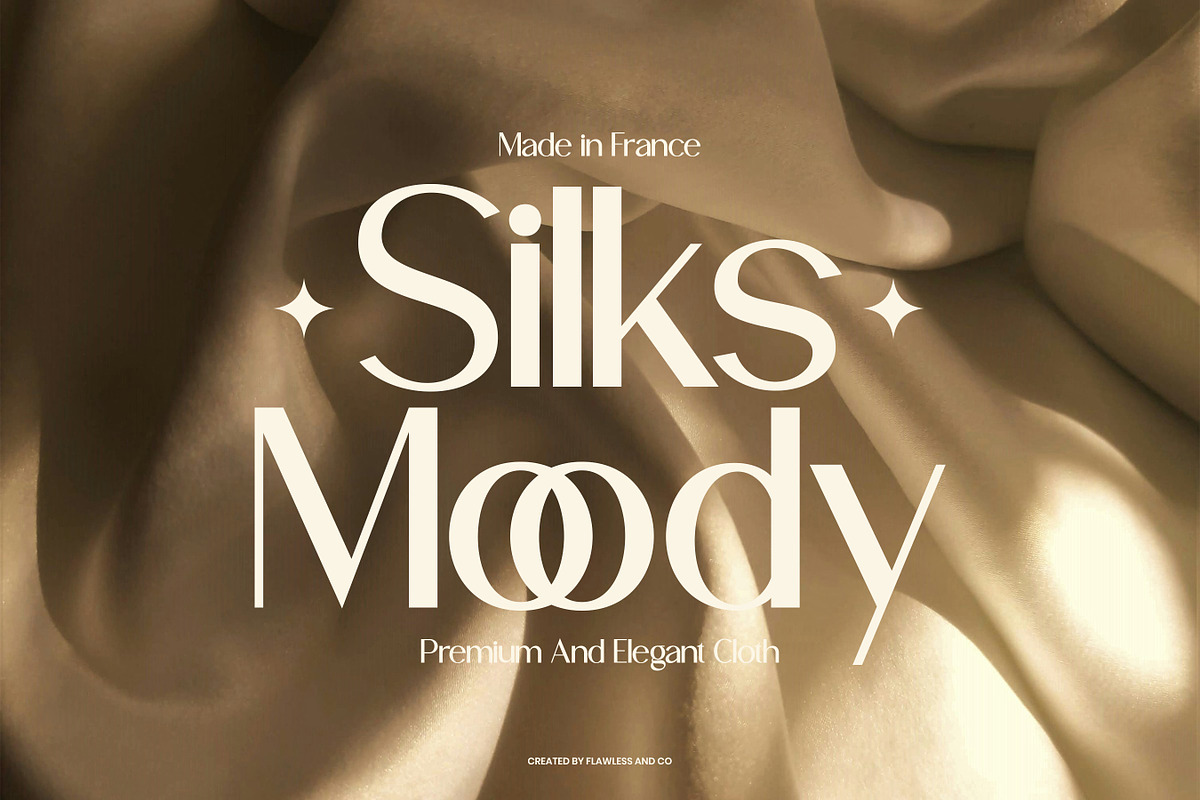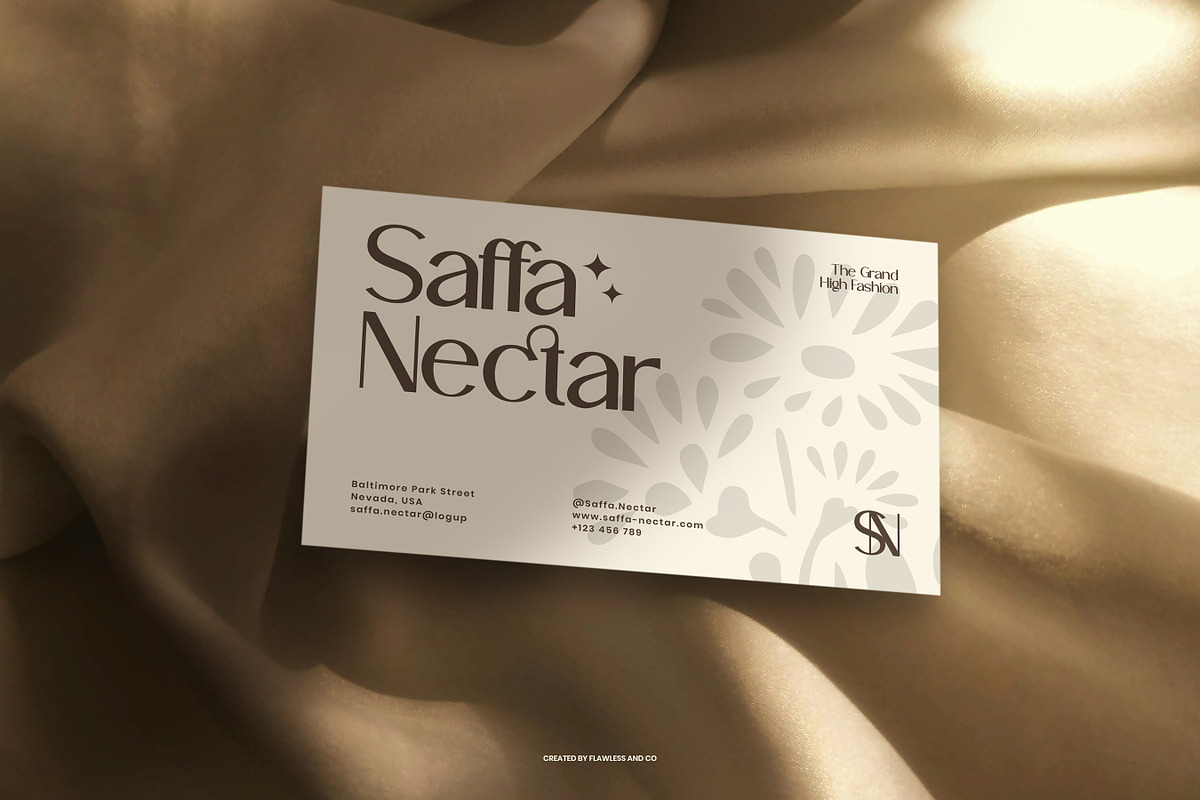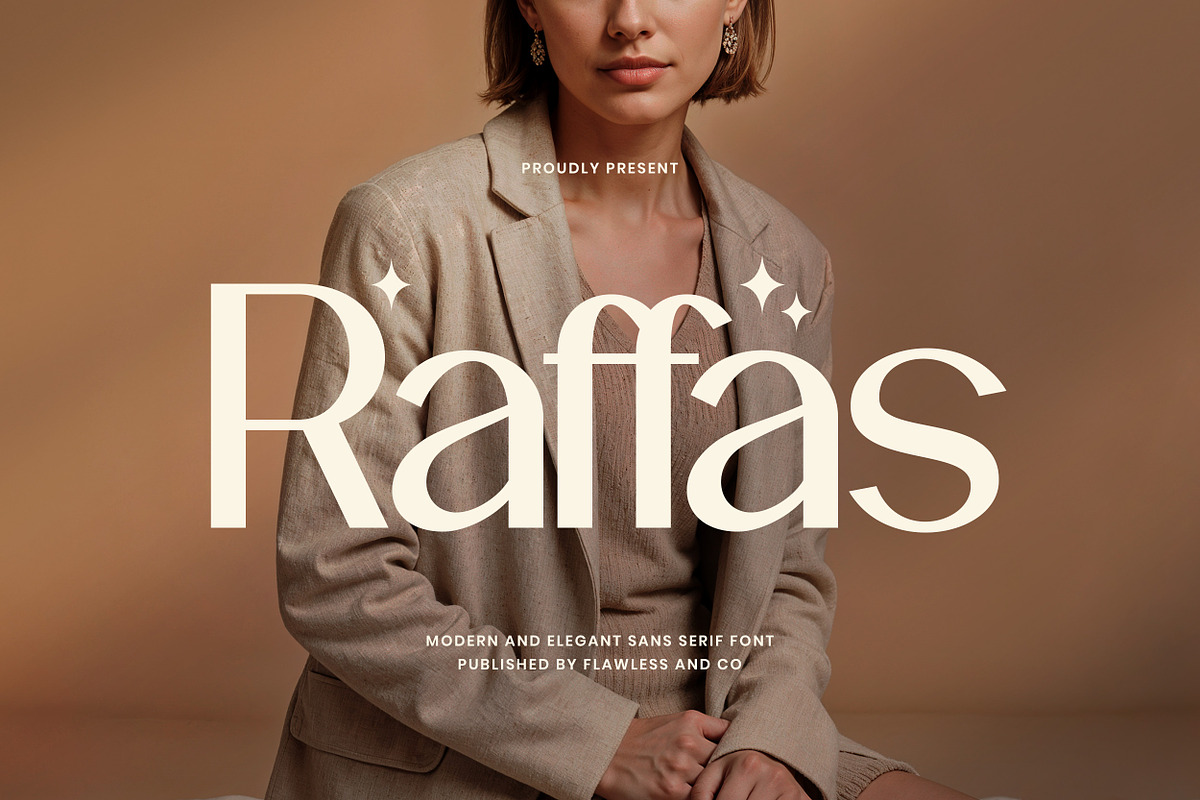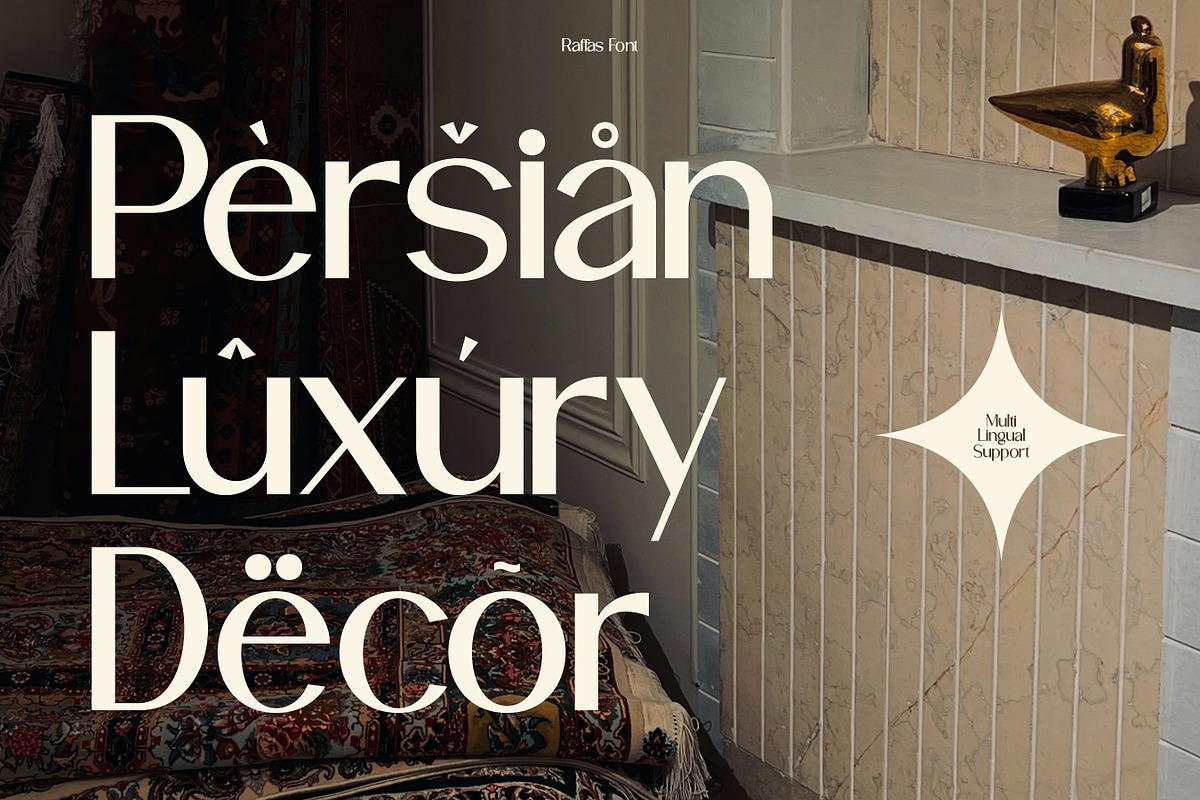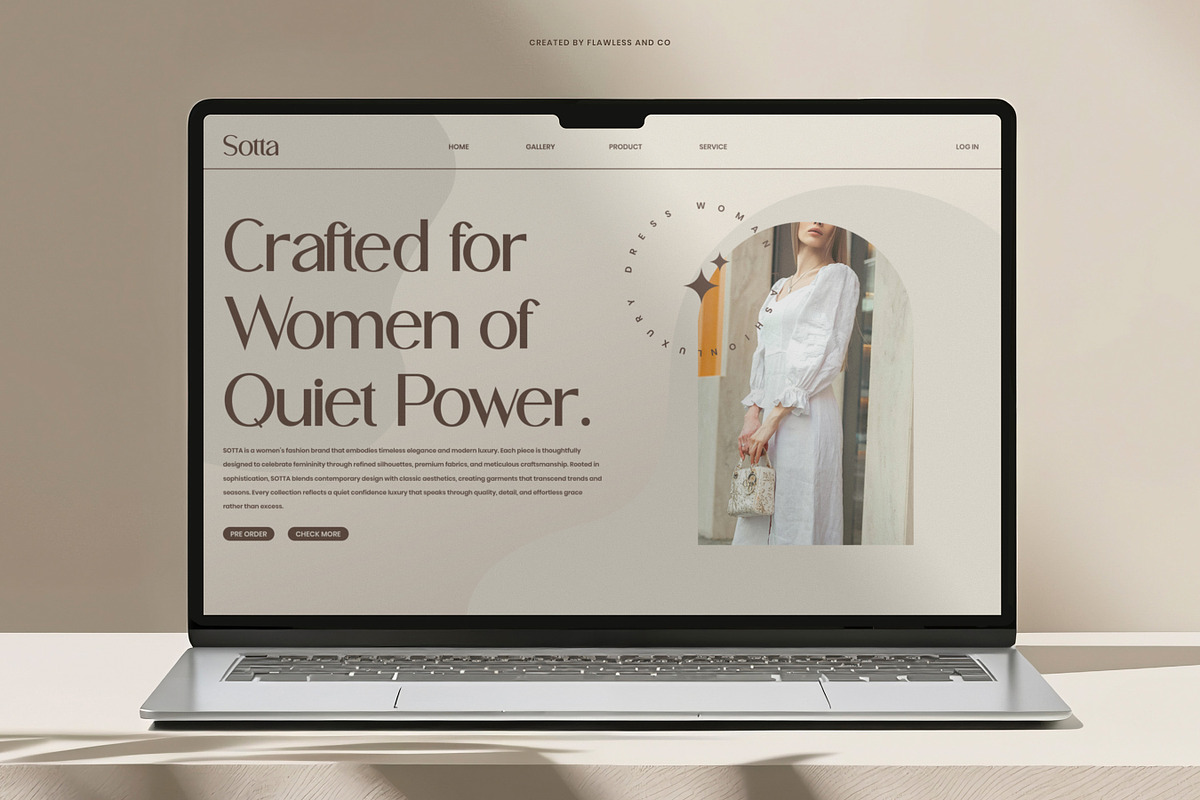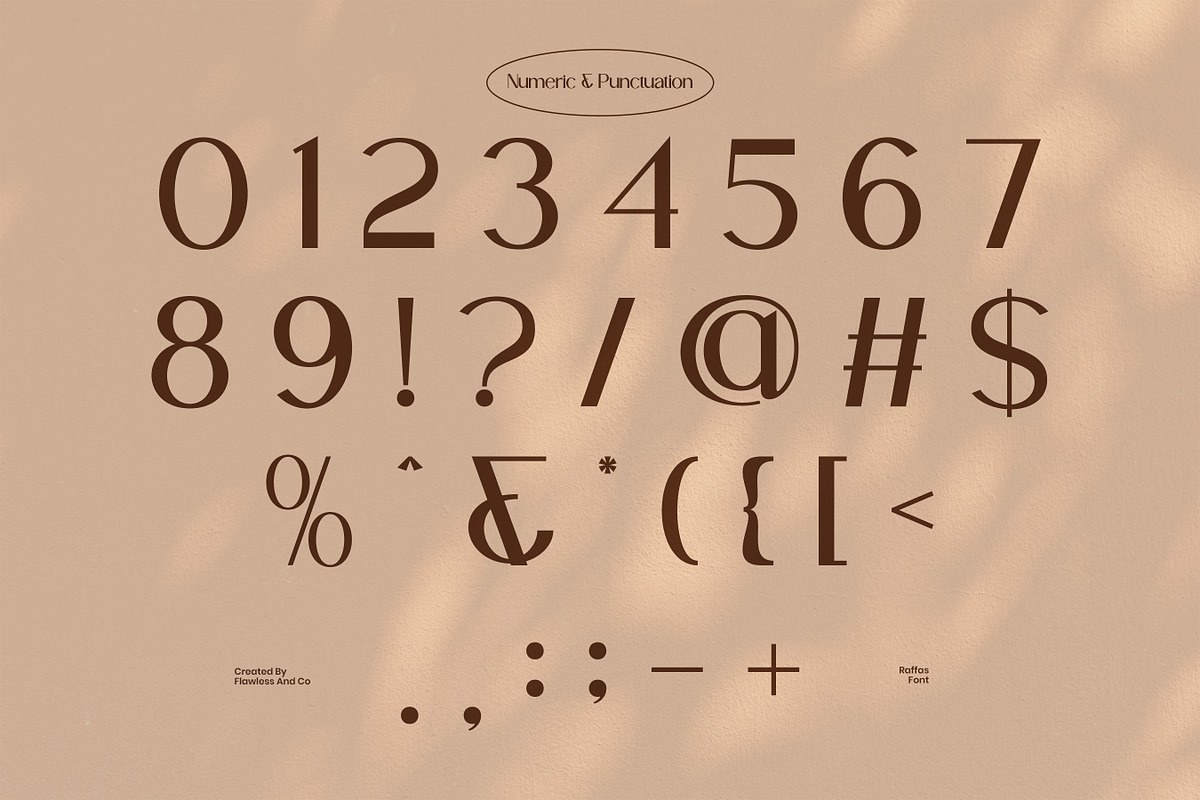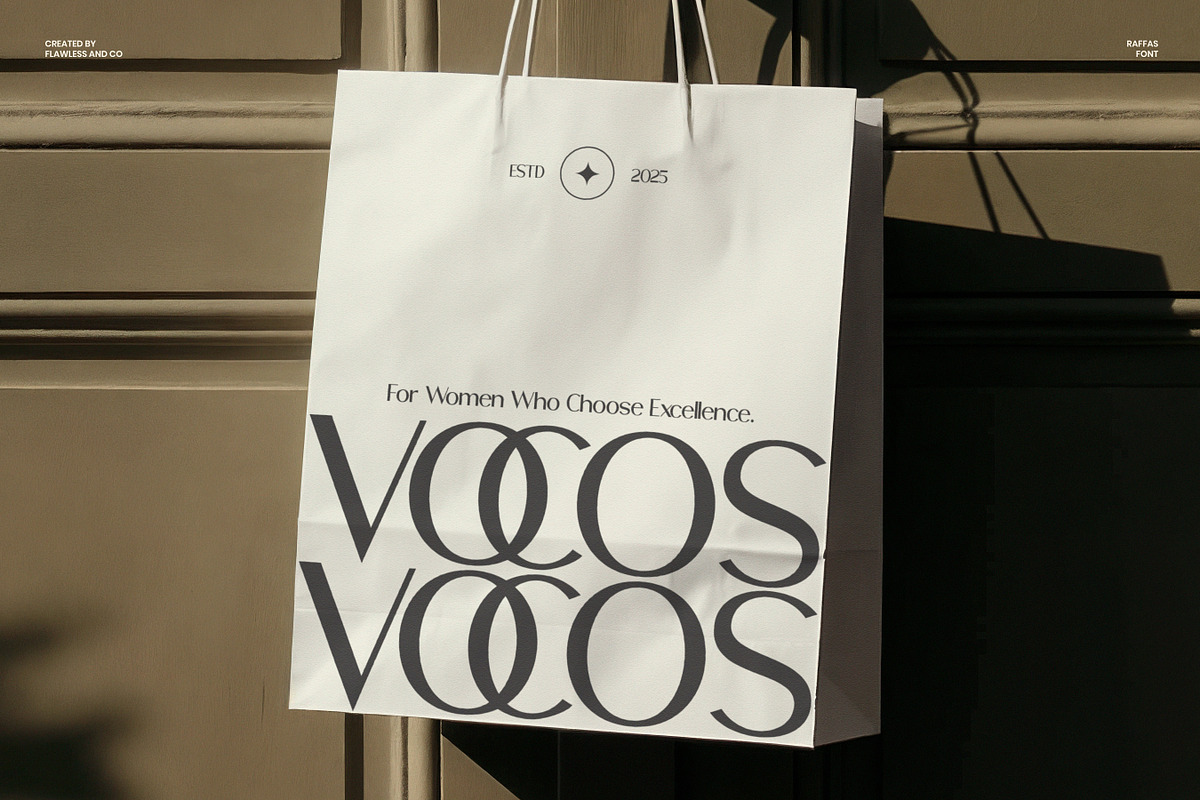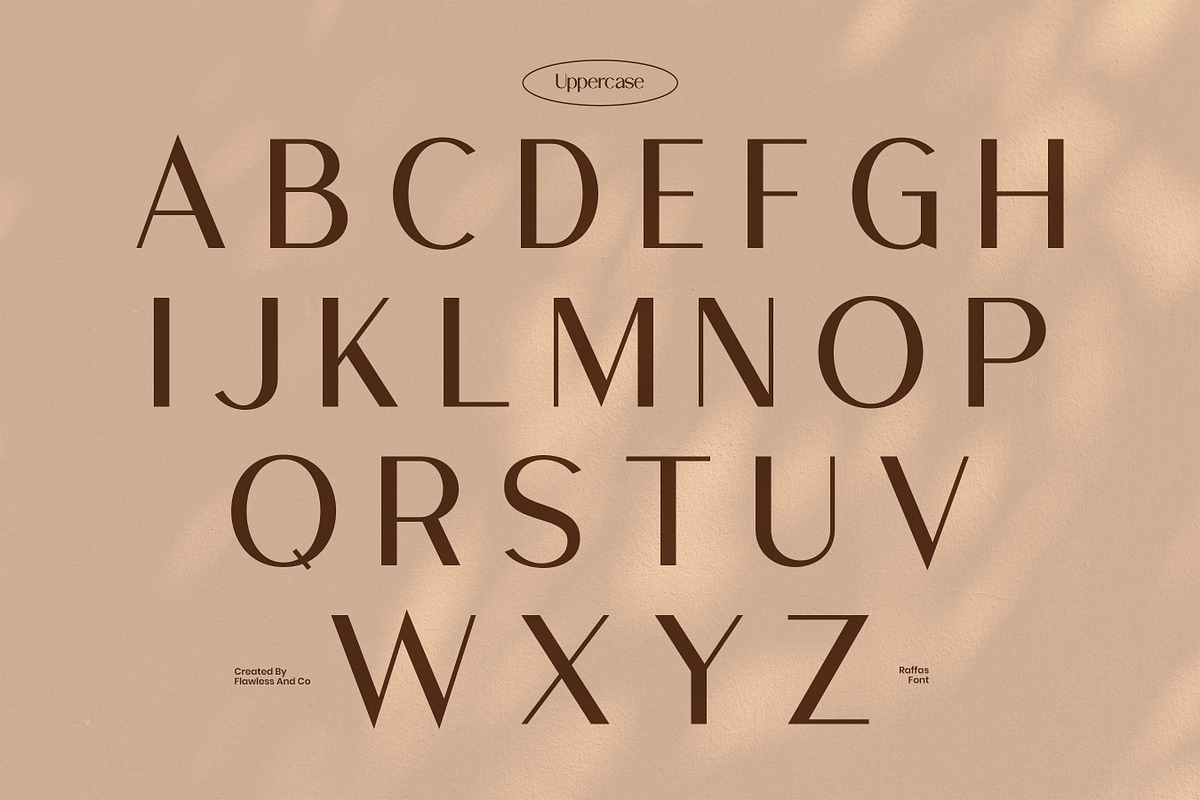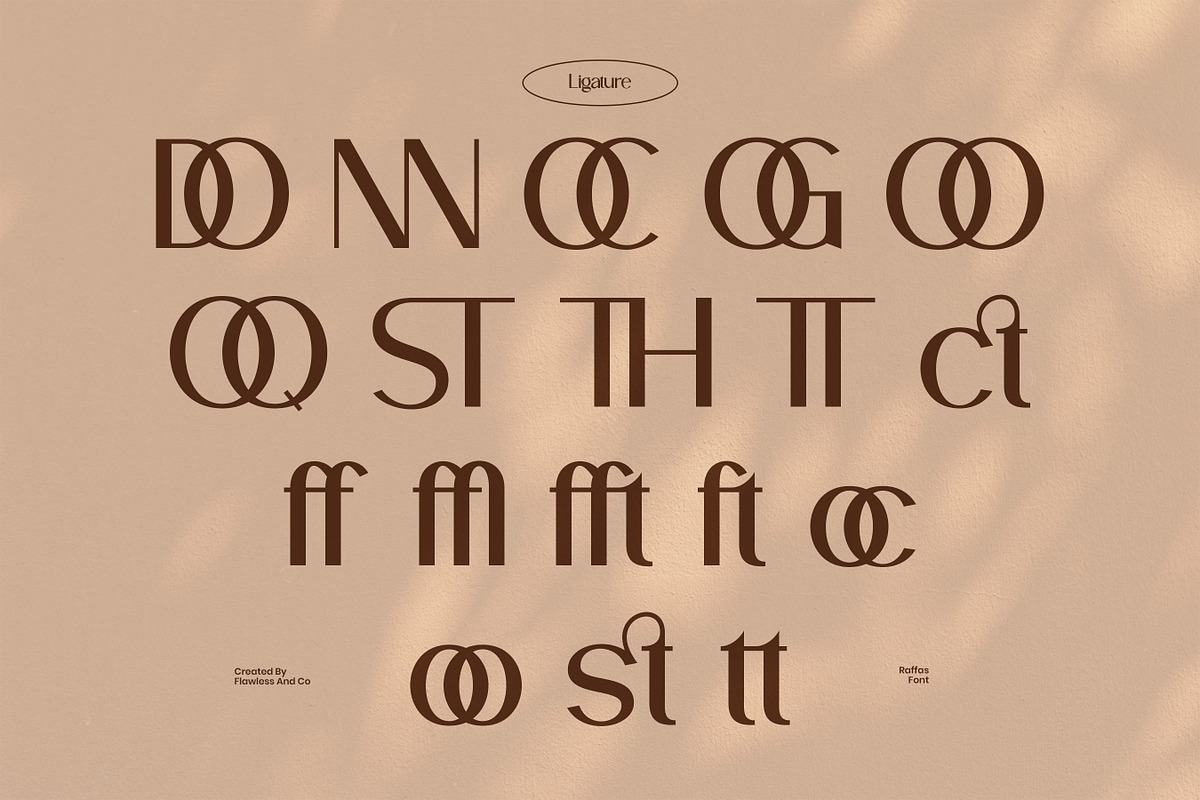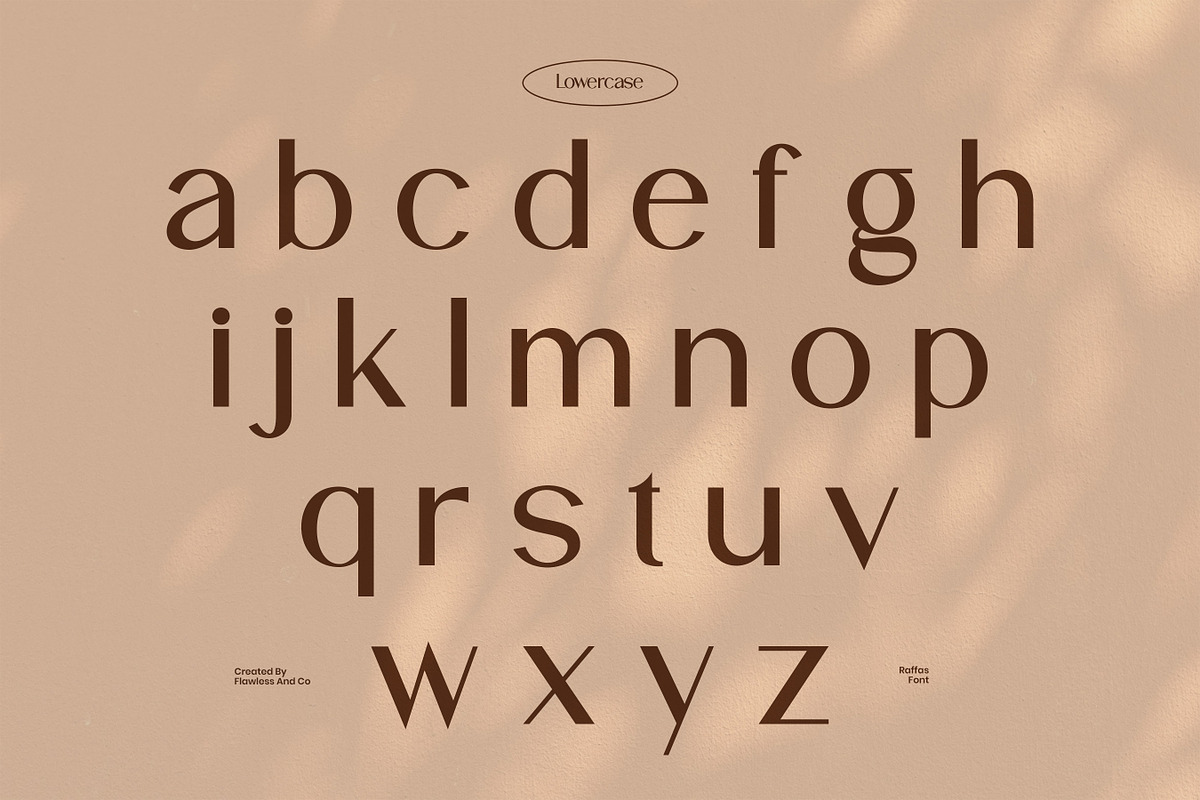
Raffas
Raffas - Elegant Sans Serif Font
Raffas is an elegant modern sans serif font designed to bring a clean, refined, and professional feel to any visual project. With its smooth curves, balanced proportions, and minimalist character, Raffas delivers a timeless aesthetic that feels both contemporary and luxurious. This font is crafted to work beautifully in branding and logo design, offering clarity and sophistication without losing personality.
Who Should Use Raffas?
Raffas is ideal for designers and creatives who need a clean, elegant, and modern sans serif font. It’s perfect for brand owners, logo designers, and creative studios looking to build a professional and sophisticated visual identity. Raffas also suits businesses in fashion, beauty, lifestyle, and corporate industries that want a minimalist yet premium look across their branding and marketing materials.
A Must-Have Font for Brand and Logo Creators and Designers
Raffas is a versatile sans serif font designed for clean, modern branding. Its elegant shapes and balanced proportions make it an excellent choice for logos, brand identities, and professional design projects that require a refined and timeless look.
Suitable For:
- Brand identity & logo design
- Corporate and business branding
- Editorials and magazine layouts
- Fashion and lifestyle brands
- Product packaging
- Social media graphics
- Marketing and promotional materials